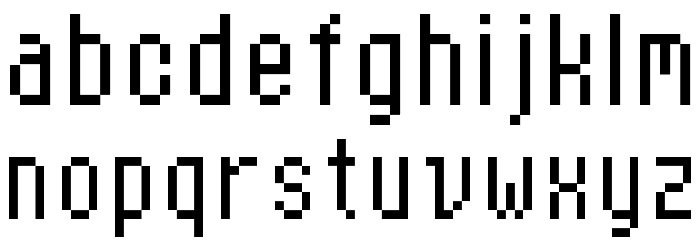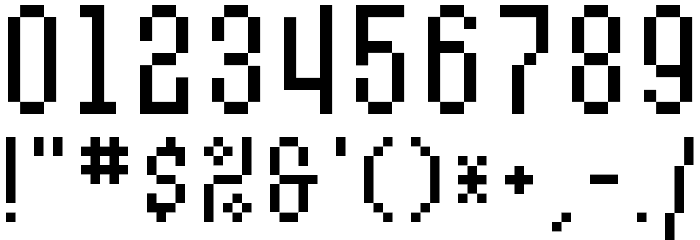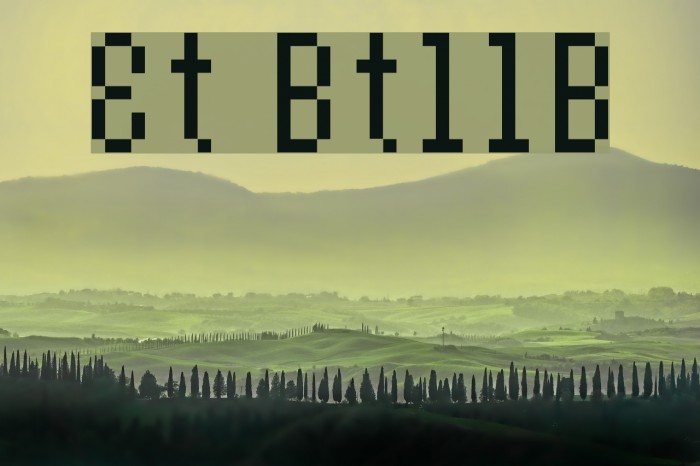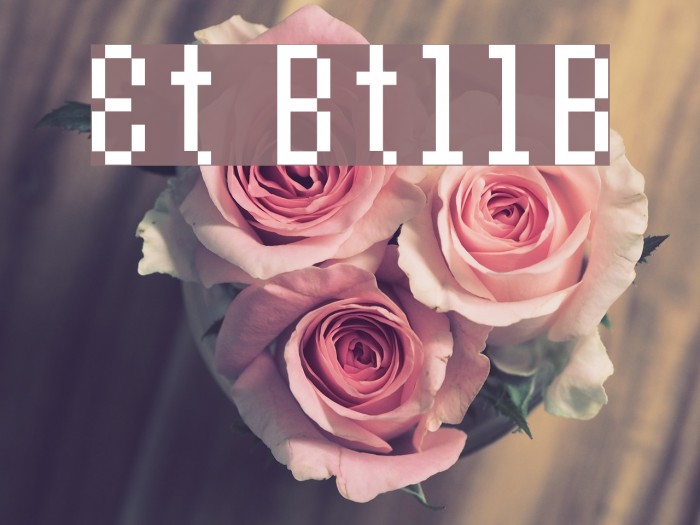
Et Bt11B Font
This font features a pixelated, blocky design reminiscent of early digital displays and video games. Each character is constructed with a grid-like precision, giving it a distinctly retro and technological feel. The uppercase and lowercase letters maintain a consistent height, contributing to a uniform appearance. The numerals and special characters follow the same pixelated style, ensuring a cohesive look across all glyphs. This font is ideal for projects that aim to evoke nostalgia for the 8-bit era or require a digital, tech-inspired aesthetic.
A pixelated, retro font inspired by early digital displays.
- Proposed Projects: Video game design, tech-themed posters, retro websites, digital art projects.
- Overall Style: Retro, Digital